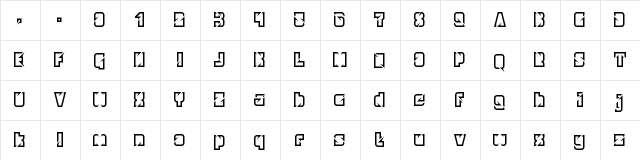
Ngking font Regular
| Designer | Dohn Michael D. Ngking |
Design Context for Ngking font Typeface
Ngking font is a composed and adaptable typeface that performs quietly and consistently across a wide range of design contexts.